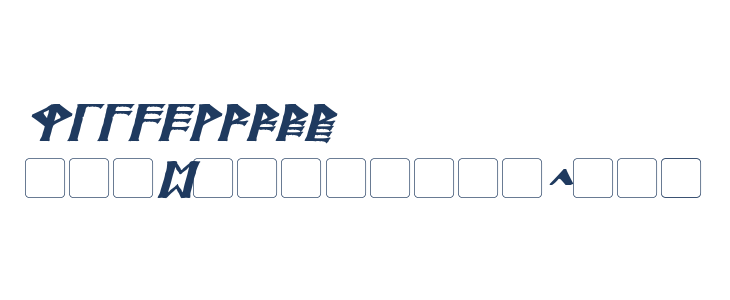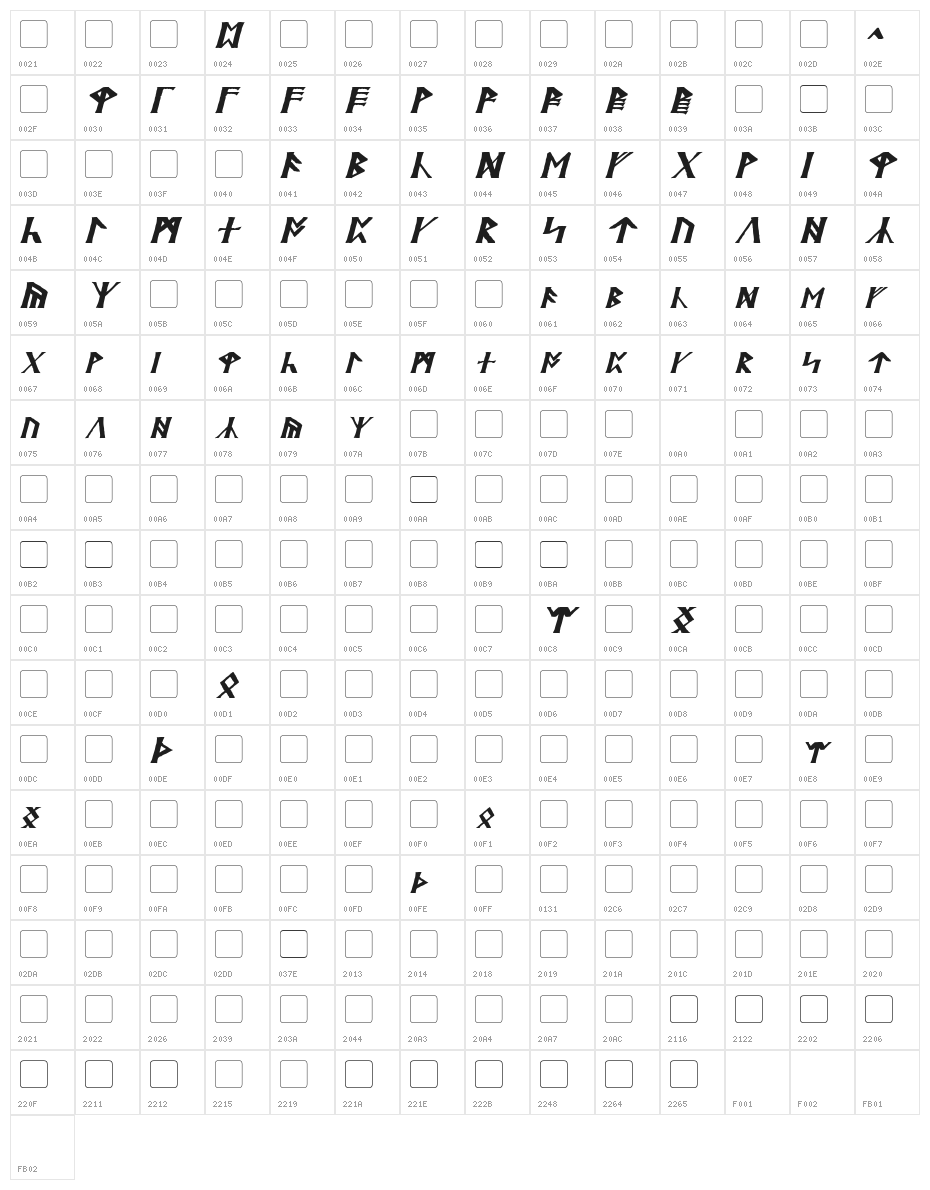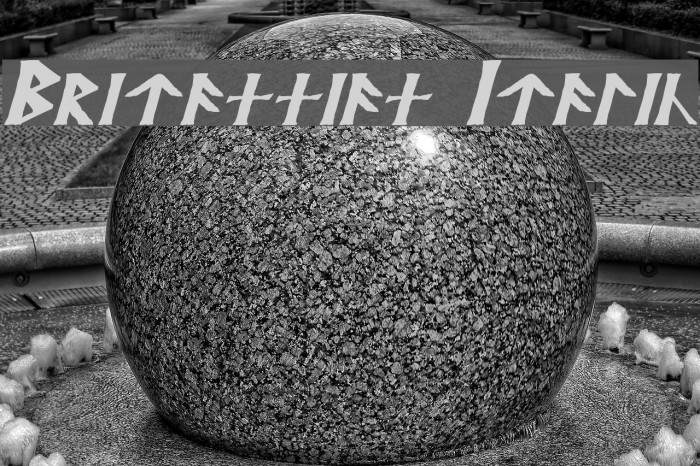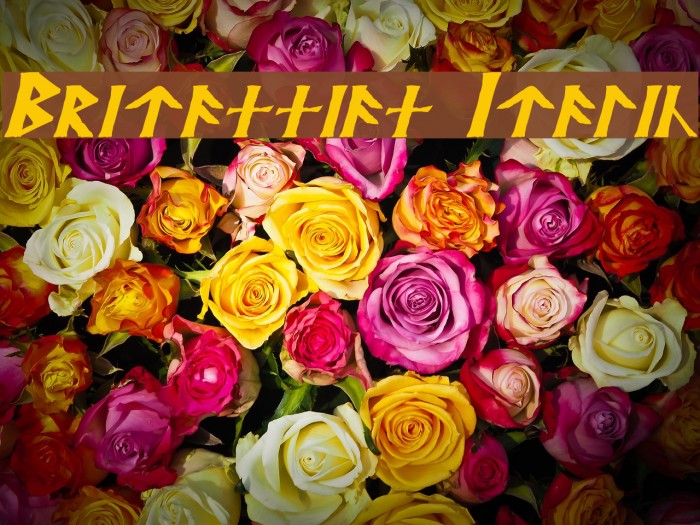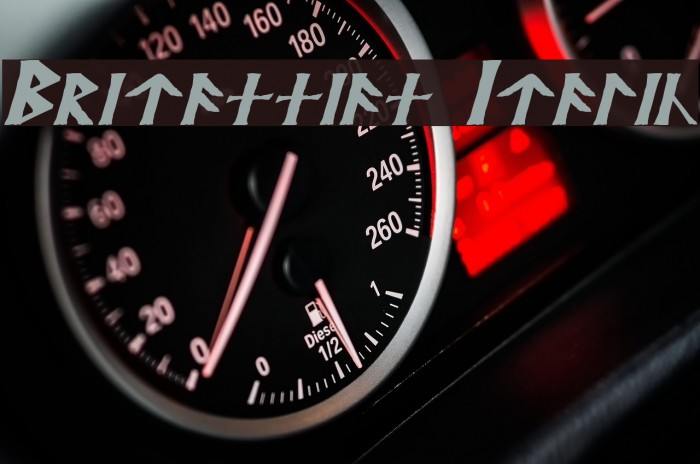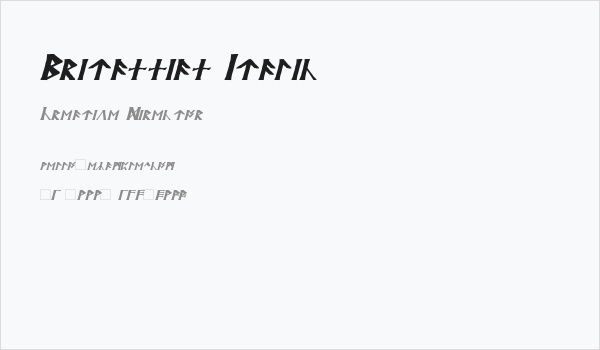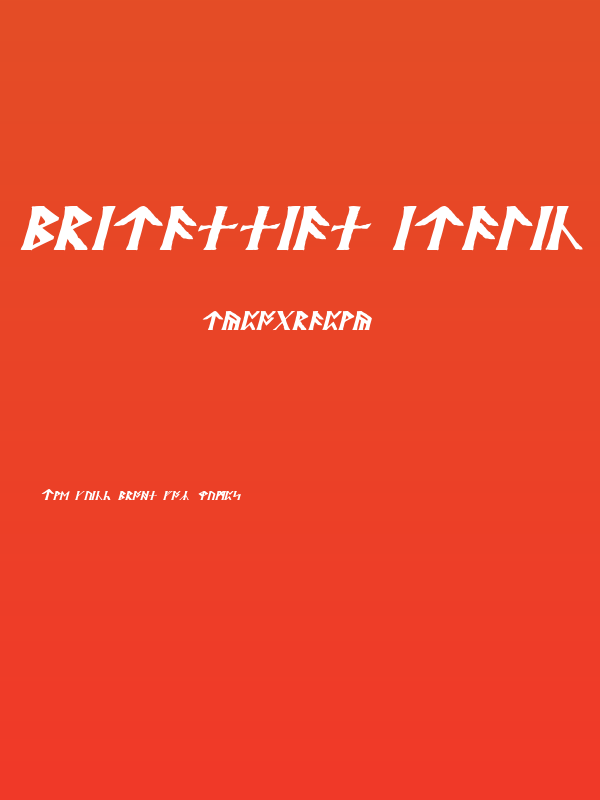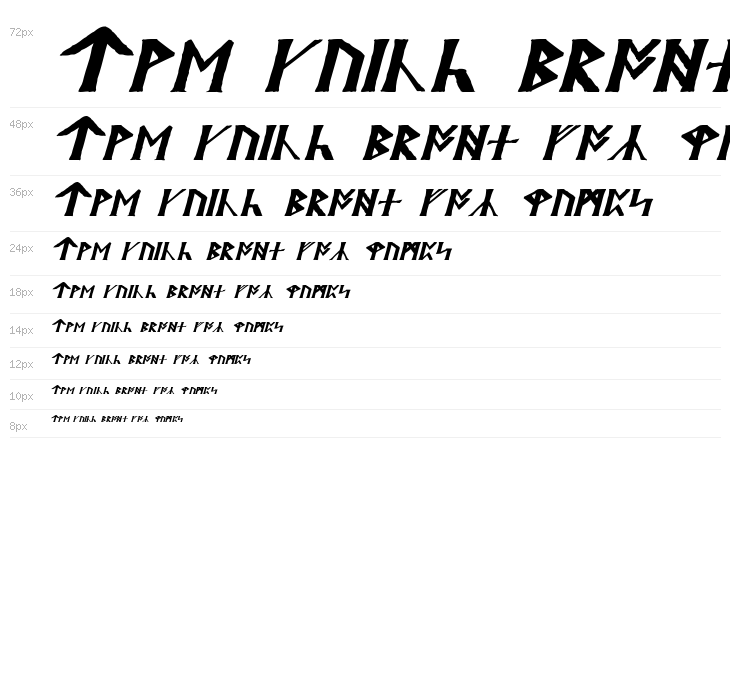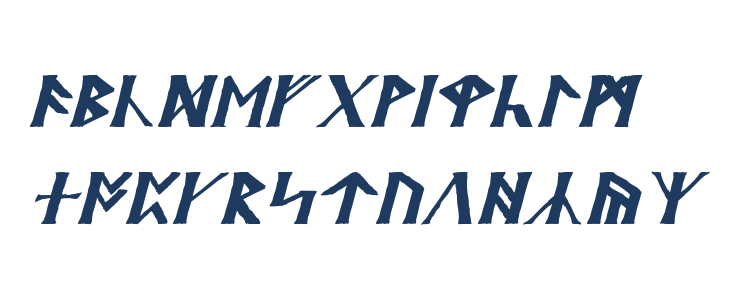
Britannian Italic Font
Britannian Italic Description
This font features a bold and angular design reminiscent of ancient runic alphabets. The characters are sharply defined with a distinct slant, giving an italicized appearance. The strokes are thick and consistent, providing a strong visual impact. The style is decorative, with each letter exhibiting unique geometric shapes and angles. This font lacks traditional curves, opting instead for straight lines and sharp edges, which contribute to its unique and striking appearance. The overall design suggests a historical or fantasy theme, making it suitable for projects that require a touch of the mystical or ancient.
| Use Case | Logos, Headlines, Themed Events |
| Proposed Projects | Ideal for fantasy-themed projects, game titles, book covers, or any design requiring an ancient or mystical aesthetic. |